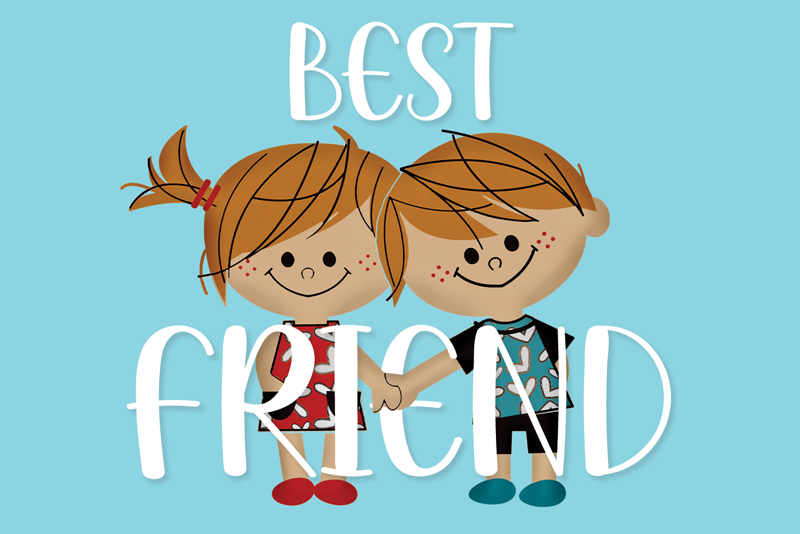
Best Friend is a quirky and chic lettered display font. It can easily be matched to an incredibly large set of projects, so add it to your creative ideas and notice how it makes them stand out! Attention : Best Friend handwriting Font is prohibited to use this font for commercial purposes or for profit without the permission of the author/admin, without being known to use this font without permission, will be subject to sanctions 5x the specified price. This font is used only for demos (Demo license) If you want to use this font for commercial use please contact email: elllulukstudio123@gmail.com or click the link below: https://majelisfont.com/product/best-friend/ If you want to see more other fonts, please click: https://majelisfont.com/ Any donations are very appreciated. Paypal account for donation: https://www.paypal.com/paypalme/luluk783 thanks. |